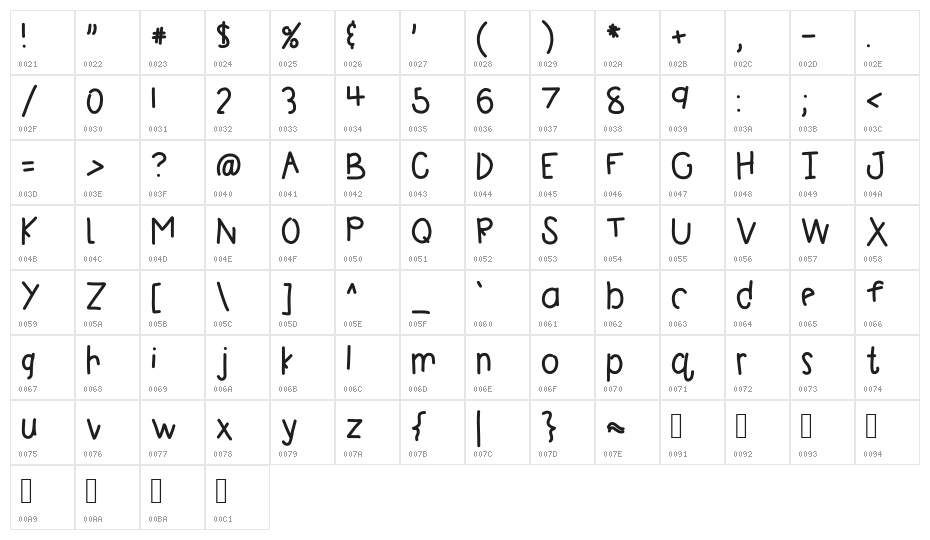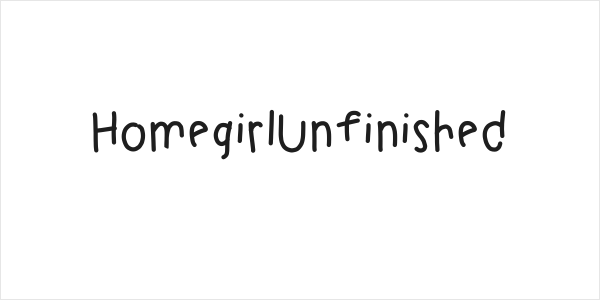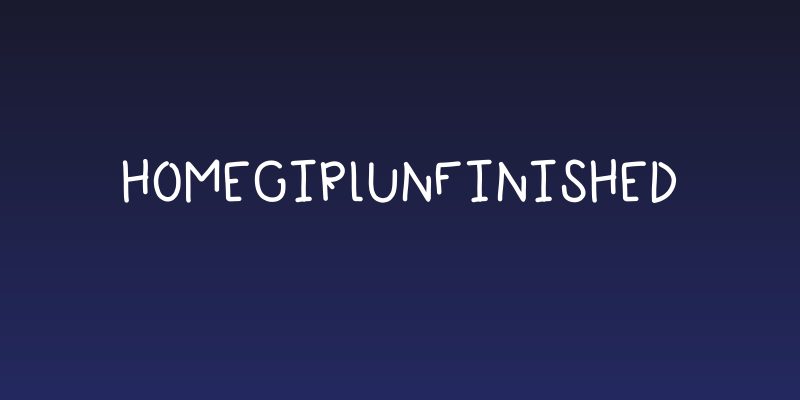
HomegirlUnfinished Font
HomegirlUnfinished Description
This font exudes a playful and casual handwritten style, characterized by its smooth, rounded edges and slightly irregular letterforms. The uppercase and lowercase letters maintain a consistent flow, giving it a friendly and approachable appearance. The numerals and special characters are crafted with the same informal aesthetic, ensuring uniformity across all glyphs. Its simplicity and charm make it ideal for projects that require a personal touch, such as invitations, greeting cards, or children's book illustrations. The font's legibility is enhanced by its medium contrast and normal character spacing, making it suitable for both digital and print media.
| Proposed Projects | Ideal for invitations, greeting cards, children's books, and casual branding. |